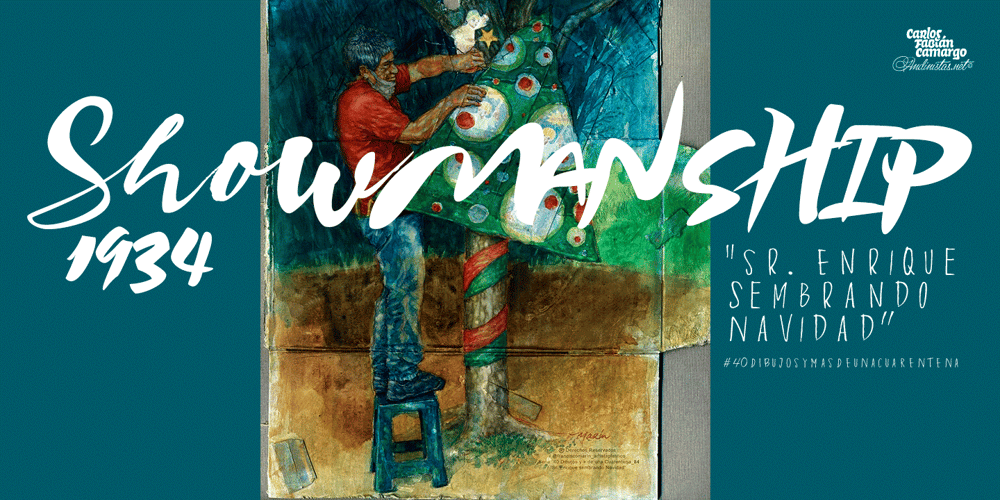
Visible Font Family was designed by Carlos Fabián Camargo Guerrero and published by Andinistas. Visible contains 4 styles and family package options. Visible is a dynamic typeface family designed by CFCG @andinistas. Visible Script has narrow horizontal spacing between lowercase, while Visible Script 2 has generous and wide horizontal spacing. Mixing both styles you will achieve italic designs loaded with speed and strength to communicate aggressiveness, nervous and sanguine temperament.Visible Caps contains capital letters derived from the font’s writing, but drawn aggressively and slanted 15 degrees to the right. This type of visual characteristic is typical of very fast and nervous writing that is performed with emotion without sacrificing harmony. a monolineal and condensed version is the Visible caps 2, allowing for significant horizontal space saving economies. Used Visible Caps 1 and 2, become much more than just an expressive and functional artistic tool.In short, by combining their expressive writing or Visible Caps & Script lettering styles, they make words and phrases appear to be written with a brush and ink-filled calligraphic strokes and with eye-catching qualities, their design is the perfect choice for distinctive headlines and brand identities. for music, movies, video games and more.A special thanks to the Venezuelan artist for his impressive illustrations @franciscomarin_artistaplasticoENJOY more than 1100 glyphs: + Visible Script: 398 glyphs + Visible Script2: 221 glyphs + Visible Caps: 222 glyphs + Visible Caps2: 298 glyphs